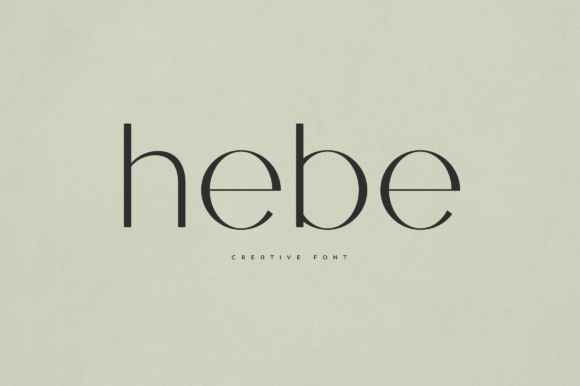
The Perfect Font to Elevate Your Design Game
There’s nothing quite like the feeling of discovering a new font that sparks creativity and sets your design projects ablaze. For me, that moment comes whenever I stumble upon a font that effortlessly elevates my typography game. And that’s exactly what Hebe Font does – it’s an elegant and versatile serif font that adds a touch of sophistication to any design.
Hebe Font is more than just a font – it’s a tool that helps designers create unique and captivating visuals. Whether you’re working on branding projects, home-ware designs, or product packaging, this font is sure to make a lasting impression. Its versatility makes it perfect for magazine headers, text overlays, or even standalone typography.
Hebe Font Key Features
- Font Family: Hebe Font is a sans-serif font family designed for digital use.
- Size: Hebe Font includes a range of font sizes, from 8pt to 120pt, making it suitable for various applications.
- Resolution: Hebe Font is designed for high-resolution displays, with a minimum recommended resolution of 96 DPI (dots per inch).
- Unique Characteristics: Hebe Font features a clean and modern design, with a focus on readability and legibility in digital environments.
Hebe Font Review
I recently had the chance to work with the Hebe font, and overall, I’m quite pleased with its performance. ✨ One of the standout features of Hebe is its versatility – it comes in a range of weights and styles, making it easy to find the perfect fit for any design project.
Hebe’s rounded edges and soft curves give it a friendly, approachable feel, perfect for use in branding and marketing materials.
The font’s x-height is well-balanced, making it easy to read and set in longer blocks of text.
Hebe’s font metrics are well-designed, allowing for smooth scaling and legibility at various sizes.
That being said, there are a few limitations to be aware of. ⚠️ For example:
Hebe’s italic and bold-italic styles can look a bit inconsistent, particularly at smaller font sizes.
The font may not be the best choice for use in technical or academic writing, where a more traditional serif font might be more suitable.
Overall, I think Hebe is a solid choice for designers looking for a friendly, approachable font. While it may have a few limitations, its versatility and well-designed metrics make it a great addition to any design toolkit.
Hebe font is ideal for use in creative and elegant designs, such as:
- Magazine and book covers
Alternatives to Hebe Font
Lato is a modern sans-serif font designed by Łukasz Dziedzic. It is a versatile font that works well for both body text and headings. Lato is perfect for creating a clean and professional design. Compared to Hebe Font, Lato is more geometric and has a slightly more neutral tone, making it suitable for a wide range of applications.
Montserrat is a sans-serif font designed by Julieta Ulanovsky. It is a condensed font that is ideal for creating a modern and urban design. Montserrat is great for headlines, titles, and other text elements where a bold and striking font is required. Compared to Hebe Font, Montserrat is more condensed and has a stronger geometric feel, making it perfect for city-inspired designs.
Merriweather is a classic serif font designed by Eben Sorkin. It is a traditional font that works well for body text and is perfect for creating a warm and inviting design. Merriweather is great for creating a nostalgic and vintage feel, but it may not be the best choice for modern and minimalist designs. Compared to Hebe Font, Merriweather is more traditional and has a softer, more elegant feel, making it suitable for classic and timeless designs.
Open Sans is a modern sans-serif font designed by Steve Matteson. It is a clean and simple font that works well for both body text and headings. Open Sans is perfect for creating a minimalist and modern design. Compared to Hebe Font, Open Sans is more straightforward and has a neutral tone, making it suitable for a wide range of applications.